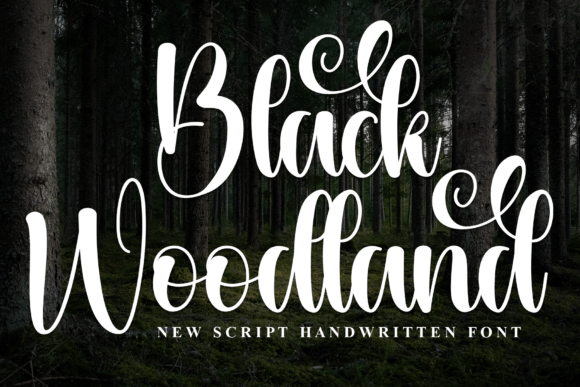
The Art of Enchantment: Unveiling the Magic of Black Woodland Font
As a designer, have you ever stumbled upon a font that makes your imagination run wild? A font that transports you to a world of whimsy and romance, where every letter feels like a brushstroke of magic? For me, that moment came when I first laid eyes on the Black Woodland Font.
This stylish script font is a masterful blend of modern elegance and handcrafted charm. Its flowing, high-contrast strokes and swashes evoke a sense of enchantment, making it the perfect choice for wedding invitations, branding, packaging, and editorial headlines. Whether you’re a seasoned designer or a creative newbie, the Black Woodland Font is a valuable addition to your toolkit, offering a unique way to make a sophisticated statement and leave a lasting impression.
Black Woodland Font Key Features
- Font Family: Black Woodland Font is a unique, hand-drawn font with a bold and mysterious feel.
- Character Set: Includes a wide range of characters, including uppercase and lowercase letters, numbers, and punctuation marks.
- Unique Characteristics: Features a distinctive, hand-crafted feel with bold lines, intricate details, and a sense of depth, making it perfect for creating a mysterious and atmospheric design.
Designer Review: Black Woodland Font
I recently had the chance to work with the Black Woodland Font, and I must say it’s an interesting addition to any design project. ✨ The font’s unique, rustic aesthetic is perfect for creating a sense of drama and mystery. Its dark, earthy tone immediately transports the viewer to a dense forest, evoking feelings of solitude and contemplation.
One of the things I appreciate most about the Black Woodland Font is its versatility. ✨ It can be used for a variety of purposes, from headlines and titles to body text and even logos. The font’s bold, condensed design makes it ideal for use in small spaces, where every letter counts.
- Unique, rustic aesthetic
- Dark, earthy tone
- Perfect for creating a sense of drama and mystery
- Highly versatile
- Works well in small spaces
- May be difficult to read in certain contexts
- Can be overpowering if used excessively
- Lack of alternative weights and styles
- May not be suitable for all audiences
Overall, I would give the Black Woodland Font 4 out of 5 stars. While it has its limitations, I believe it’s a valuable addition to any designer’s toolkit. With a little creativity and restraint, this font can help bring your designs to life in a way that’s both captivating and memorable.
For best results, pair Black Woodland Font with a clean and minimal design aesthetic.
Use it sparingly to add emphasis and create visual interest.
Black Woodland Font is ideal for:
Outdoor-themed designs, such as camping or hiking logos.
Environmental or eco-friendly branding.
Whimsical or rustic-inspired designs, such as wedding invitations or baby shower decor.
Alternatives to Black Woodland Font
Fontin is a serif font that has a similar rustic and vintage feel to Black Woodland Font. It’s ideal for use in designs that require a classic, timeless look. Fontin is particularly well-suited for use in headings and titles, and it pairs well with sans-serif fonts in body text.
Comparison to Black Woodland Font: Fontin has a more traditional, serif-based design, whereas Black Woodland Font has a more modern, handwritten feel. Fontin is a better choice when you need a classic, elegant look.
Great Vibes is a script font that has a similar relaxed, handwritten feel to Black Woodland Font. It’s ideal for use in designs that require a casual, creative vibe. Great Vibes is particularly well-suited for use in headings, titles, and body text where a more personal touch is desired.
Comparison to Black Woodland Font: Great Vibes has a more fluid, cursive design, whereas Black Woodland Font has a more structured, handwritten feel. Great Vibes is a better choice when you need a more relaxed, creative look.